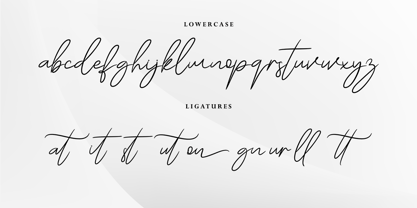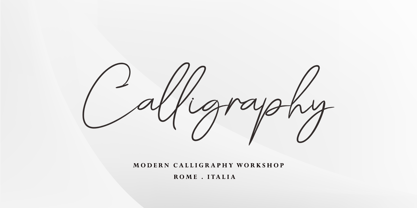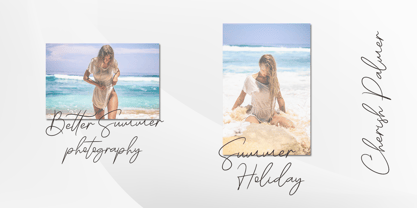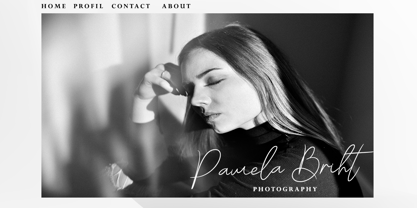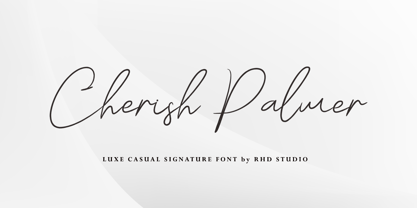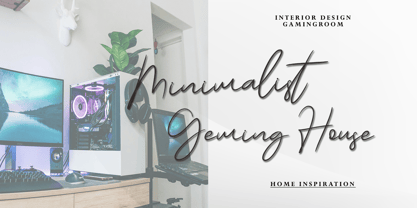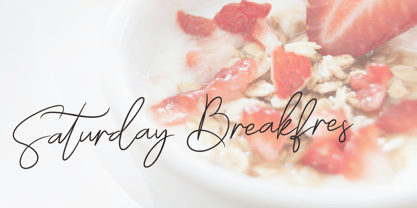
Cherish Palmer
by Rhd Studio
The Cherish Palmer Font Family was designed by Rahmad Rizky and published by Rhd Studio. Cherish Palmer contains 1 styles. More about this family
Introducing the art of luxury
Cherish Palmer. This font tells a story of a glimpse, a touch of a moment. Some letters may be illegible, but their shapes evoke emotion. Sometimes in design, emotion is more important. Our brains can decipher the shape of letters.
Designers: Rahmad Rizky
Foundry: Rhd Studio
Cherish Palmer